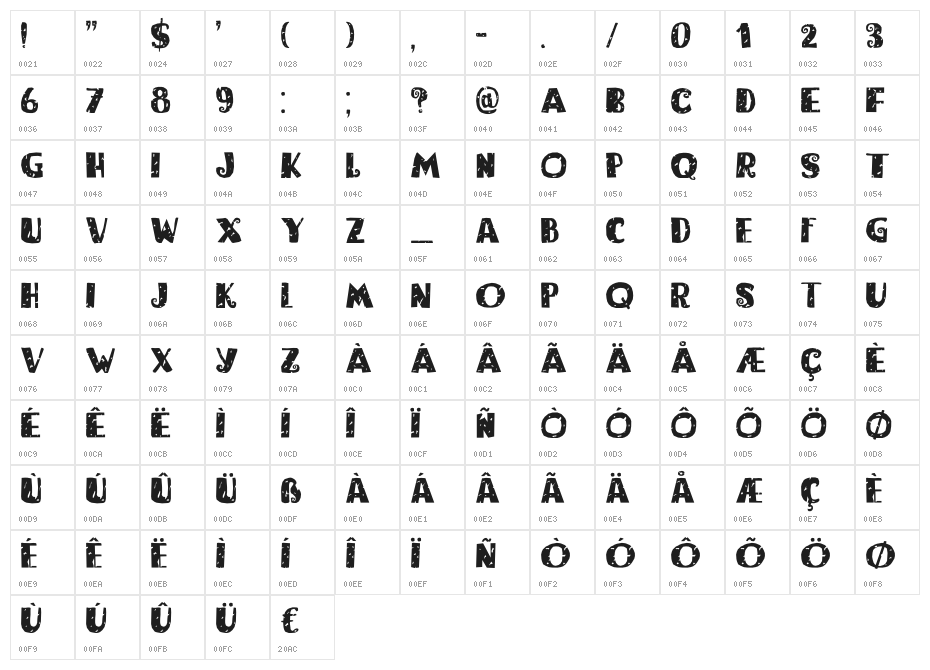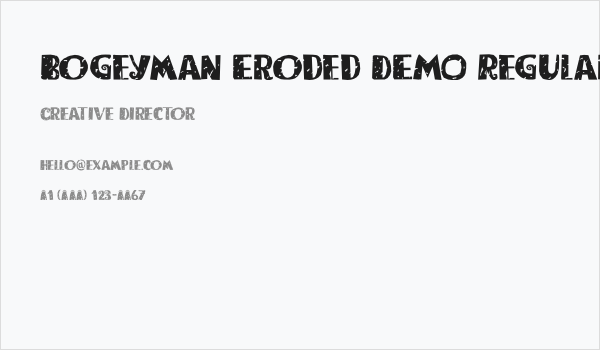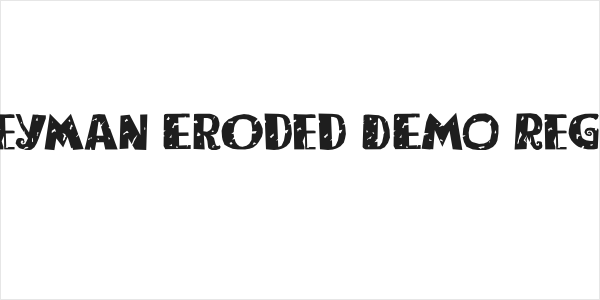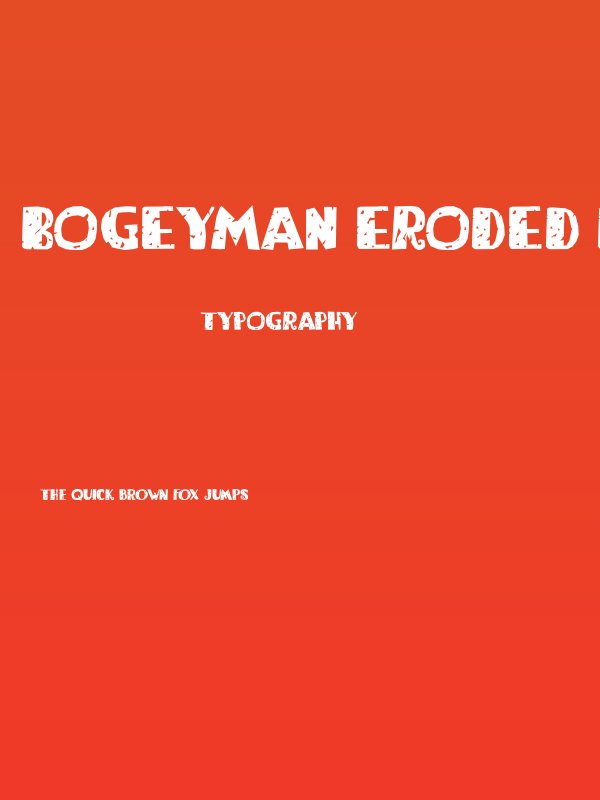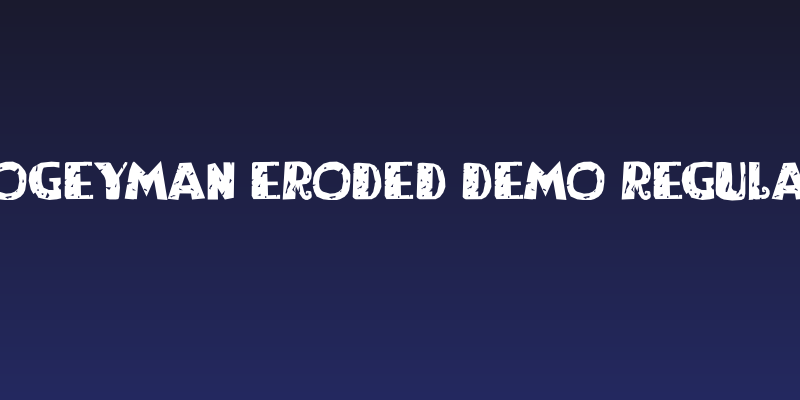
Bogeyman Eroded DEMO Regular Font
Bogeyman Eroded DEMO Regular Description
This font features a bold and eroded style, giving it a distressed and rugged appearance. The characters are heavily stylized with irregular edges and a textured look that mimics wear and tear. The uppercase and lowercase letters maintain a consistent design, with swirling elements adding a whimsical touch to certain characters. The numbers and special characters follow the same eroded theme, ensuring a cohesive appearance across all glyphs. This font is ideal for projects that require a dramatic and eye-catching typeface with a touch of grunge.
| Proposed Projects | Ideal for horror-themed posters, Halloween invitations, edgy branding, and creative graphic design projects. |